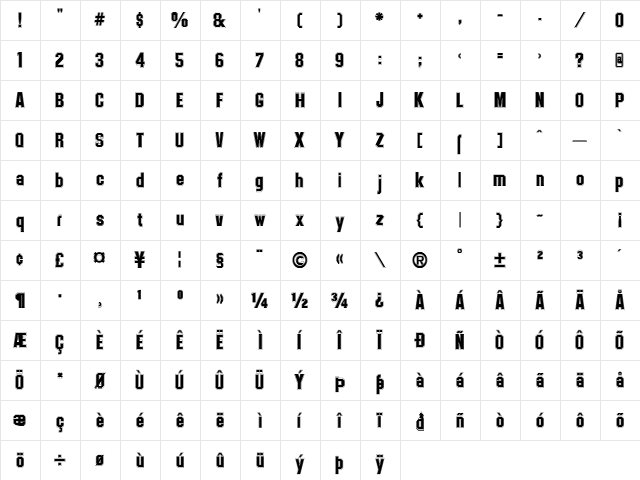
College Contour Regular
Design Context for College Contour Typeface
College Contour has the bold swagger of sports branding: strong, assertive letterforms designed to dominate headlines and jerseys alike.
Built for sports team identities, athletic apparel, event posters, and high-energy promotional material.
Pro Tip: College Contour thrives on contrast — try it large, bold, and tight against a clean background for maximum visual impact.